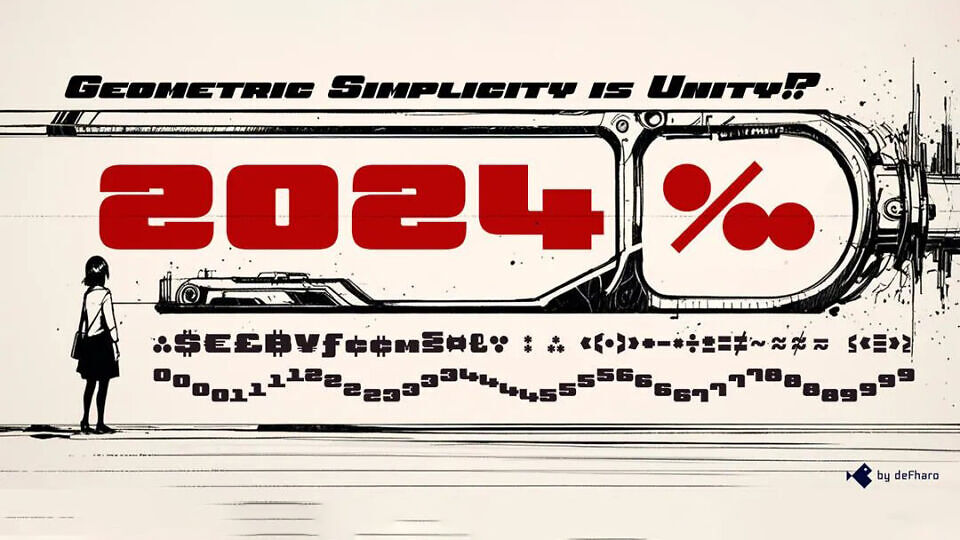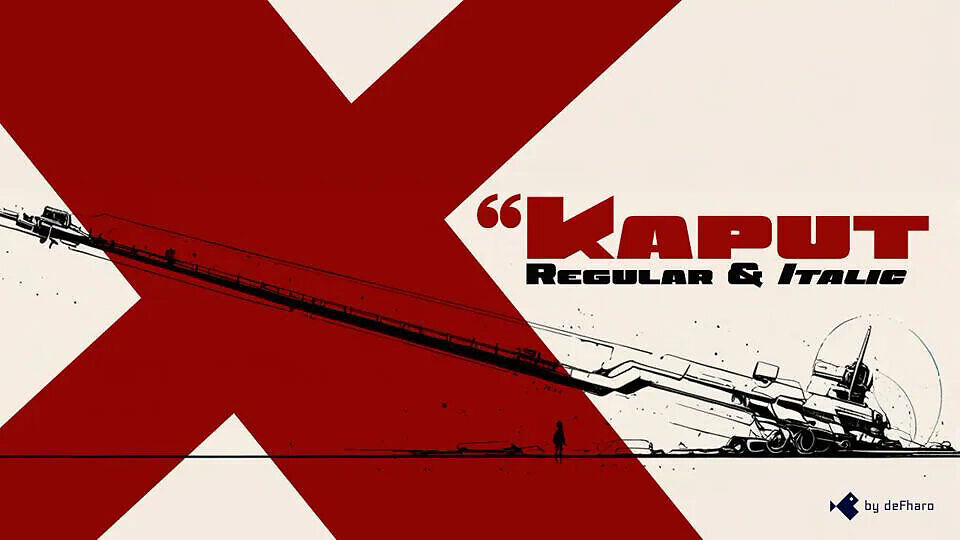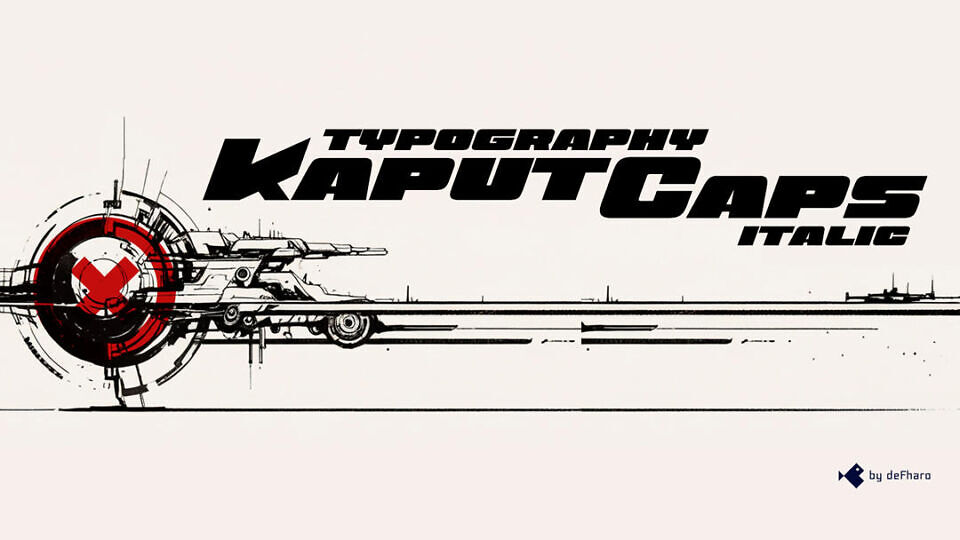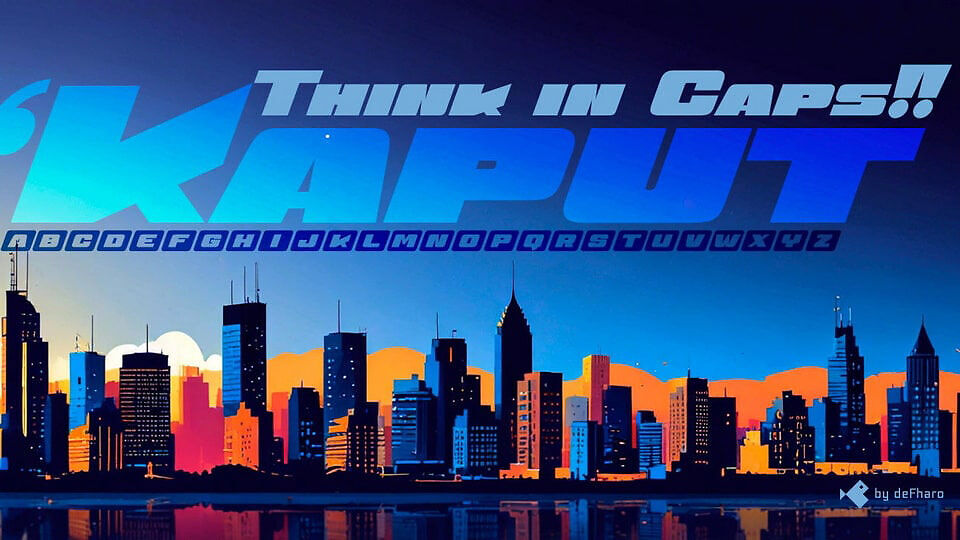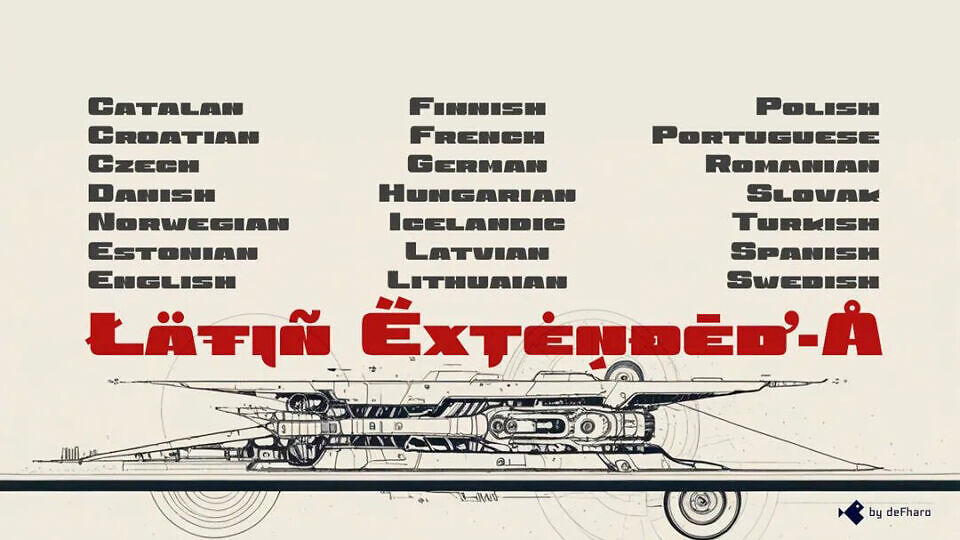
Kaput Black Italic Font is a Display Techno type font.
Kaput is designed with a perfect balance between strength and sophistication, it is rotund, semi-expanded and spectacularly legible, the thick lines and horns with marked contrasts, decidedly, not only capture attention, but also provide meticulous harmony, thanks also to a thorough work on metrics and kerning.